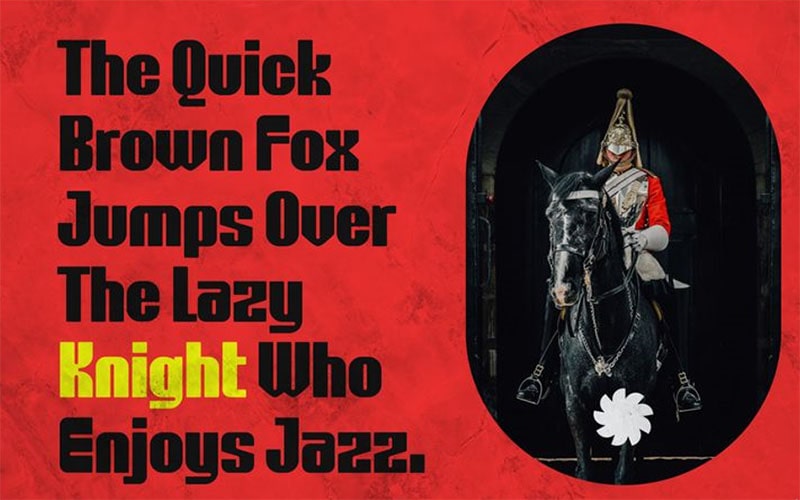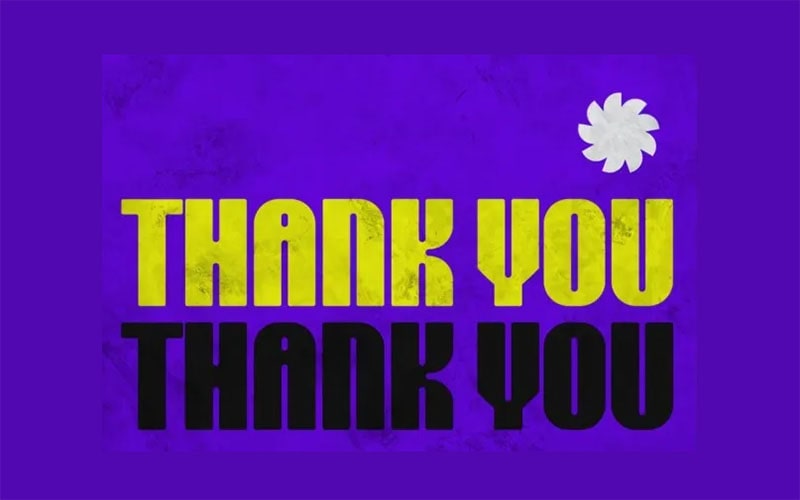
Hachinosu is a modern, geometric sans-serif typeface known for its clean lines and contemporary style. It is characterized by its geometric design, featuring clean, straight lines and balanced proportions.
The name “Hachinosu” means “honeycomb” in Japanese. Which reflects the font’s structured and balanced design. This typeface is suitable for a variety of design projects, offering a sleek and professional look.
The font has a modern and minimalist aesthetic, making it ideal for contemporary design needs. It typically comes in multiple weights, including Light, Regular, Medium, Bold, and Extra Bold.
Some versions may also include italic styles, providing flexibility for different design contexts.
It includes a comprehensive character set of Uppercase and lowercase letters, Numerals, Punctuation marks, Special characters, and symbols. Let’s have a look at its texture.
Hachinosu Font
Some versions may also include italic styles, providing flexibility for different design contexts. The font supports a wide range of Latin-based languages, ensuring its usability in various linguistic contexts.